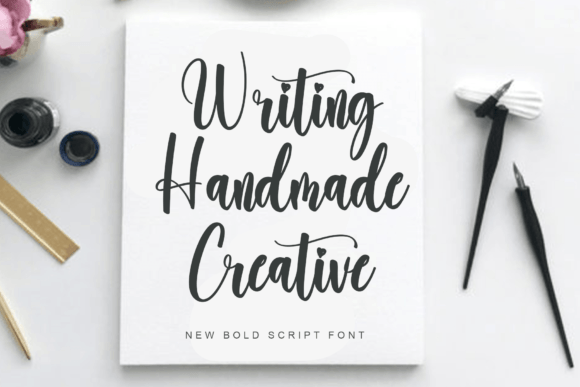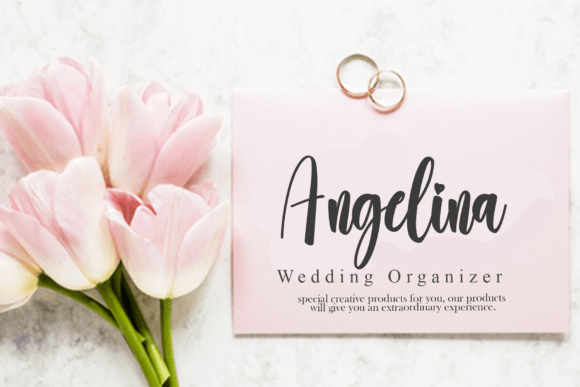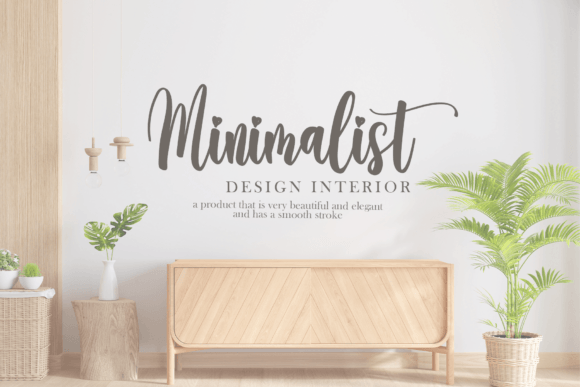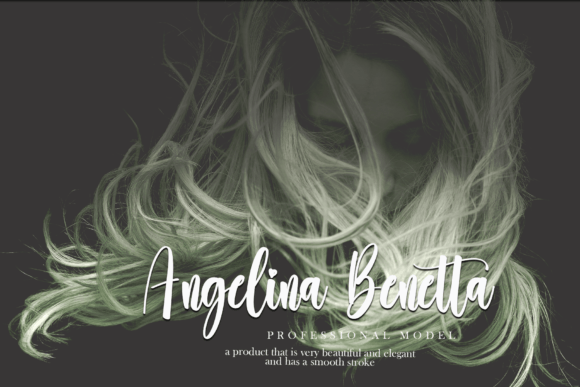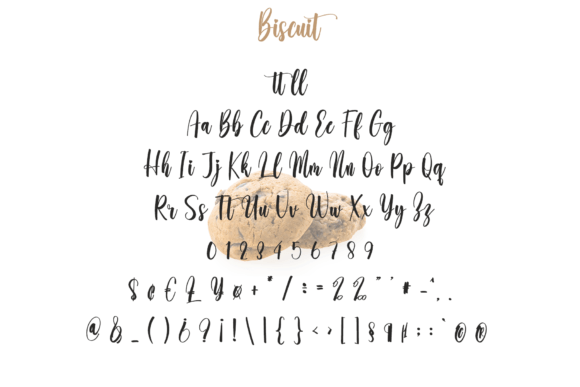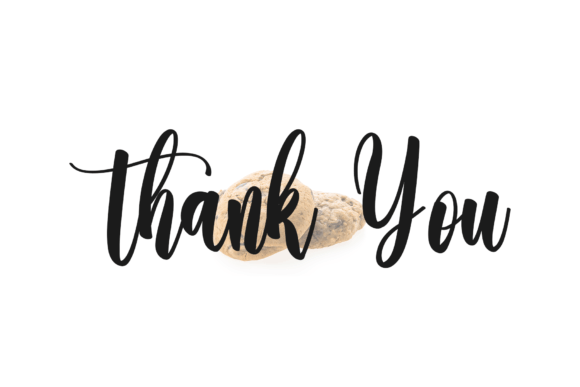
The Biscuit Font: A Creative Powerhouse for Designers
Have you ever been in the middle of a design project, and suddenly, you’re stuck on finding the perfect font? I recall a recent experience where I was working on a logo design for a trendy bakery, and I just couldn’t find a font that captured the right balance of whimsy and sophistication. That’s when I stumbled upon the Biscuit font, and it completely transformed my design. In this article, we’ll dive into the world of Biscuit font, exploring its features, uses, and what makes it a fantastic addition to any designer’s toolkit.
A Personal Review: What I Love About Biscuit Font
The Biscuit font has quickly become one of my go-to fonts for creative projects. Here’s what I love about it:
- ✨ Fancy Handwritten Style: Biscuit font boasts a beautiful, flowing script that adds a touch of elegance to any design.
- ✅ Versatility: It’s perfect for a wide range of applications, from logo design and social media graphics to movie titles and book covers.
- 💫 Unique Character: The font has a distinct personality that sets it apart from more generic fonts.
While Biscuit font is incredibly useful, there are a few minor quirks to be aware of:
- 🤔 Legibility at Small Sizes: Like many script fonts, Biscuit can be a bit tricky to read at very small sizes. It’s best used at larger sizes where its details can shine.
- ⚠️ Overuse: Because of its beautiful and distinctive style, there’s a risk of overusing the font in a single design. It’s essential to balance it with simpler fonts to maintain visual hierarchy.
The Biscuit font was designed with the intention of capturing the essence of handwritten elegance in a digital format. Inspired by classic scripts and modern calligraphy, the designer aimed to create a font that would be both versatile and stylish. The result is a font that feels both luxurious and approachable.
| What makes Biscuit font unique? | The Biscuit font stands out due to its fancy handwritten style, making it perfect for designs that require a touch of elegance and sophistication. |
| Is Biscuit font suitable for body text? | While Biscuit font is stunning for headings and titles, it’s not typically recommended for body text due to its script nature and potential legibility issues at smaller sizes. |
| Can I use Biscuit font on social media graphics? | Absolutely! Biscuit font is perfect for social media graphics, adding a professional and stylish touch to your posts and stories. |
With its elegant style and versatile application, the Biscuit font is sure to become a favorite in your design toolkit. Whether you’re working on a logo, social media graphics, or book titles, Biscuit font can help you create stunning work that stands out.